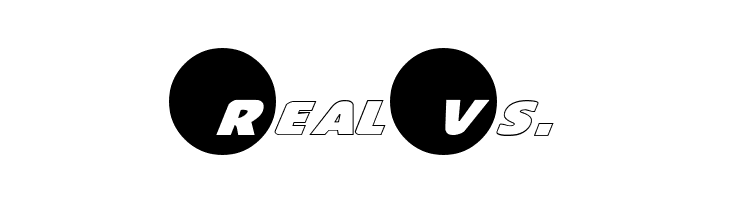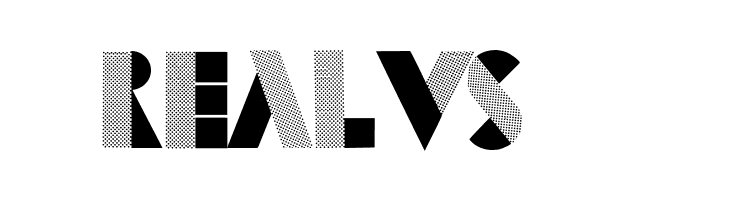
Goombella Font
A bold, expressive brush-style font with dynamic, artistic strokes.
DJB TOOTSIEWOOTSIE Font
A playful, decorative font with polka dots and stripes, perfect for creative projects.
CARBONCILLO PALO Normal Font
A textured, hand-drawn font with a charcoal sketch appearance.
Paneuropa Crash barrier Black Font
A bold, outlined font with a modern and decorative style.
JesayaBk-Regular Font
A modern sans-serif font with a clean, professional look and slightly condensed structure.
VTC-FreehandTattooOne Font
A bold, hand-drawn font with a freehand tattoo style.
Halloween Party St Font
Font by Southype
A spooky, Halloween-themed font with spider web and spider accents.
Alum Free Promotional 2 Font
Font by Graham Meade - GemFonts
A decorative, striped font with a dynamic and textured appearance.
SF Hollywood Hills Italic Font
Font by ShyFonts
A bold, italic font with sharp angles and a modern, dynamic style.
National Express Italic Font
A bold, italic font with sharp angles and a modern, dynamic style.
AEZ another turtle font Font
A decorative font featuring whimsical turtle illustrations for each character.
Airstrike Outline Regular Font
A bold, geometric outline font with a futuristic and dynamic style.
Montroc Laser Italic Font
A bold, italicized font with a futuristic and geometric design.
SaiGon Font
A dynamic, angular font with a calligraphic influence and high contrast strokes.
Federal Escort Condensed Font
A bold, modern font with a futuristic and geometric design.
WacoFaces Font
Hand-drawn, face-themed decorative font with unique illustrations for each character.
BAM It's Andrea! Font
A playful, handwritten font with a casual and friendly appearance.
First Order Font
A bold, artistic font with flowing strokes and decorative elements.
DJB Baby Bump Font
A playful, hand-drawn font with whimsical, doodle-like characters.